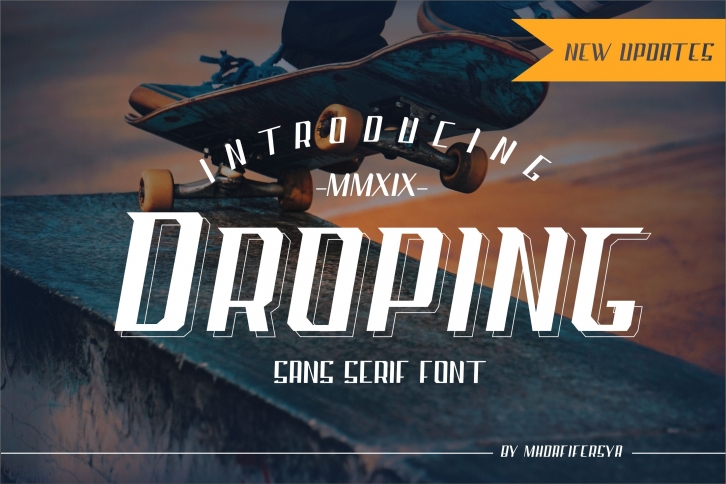
Droping Sans Serif is a great font that was designed by Mevricks Studio. Imagine the amount of combinations you can create using this font! The archive is 10.11 MB and it was released on April 17, 2019. Droping Sans Serif looks beautiful on wedding invitations, greeting cards, logos, posters, labels, t-shirt designs, logos, business cards and is perfect for use in ink or watercolor works, fashion, magazines, packaging and food menus, children's books and more!